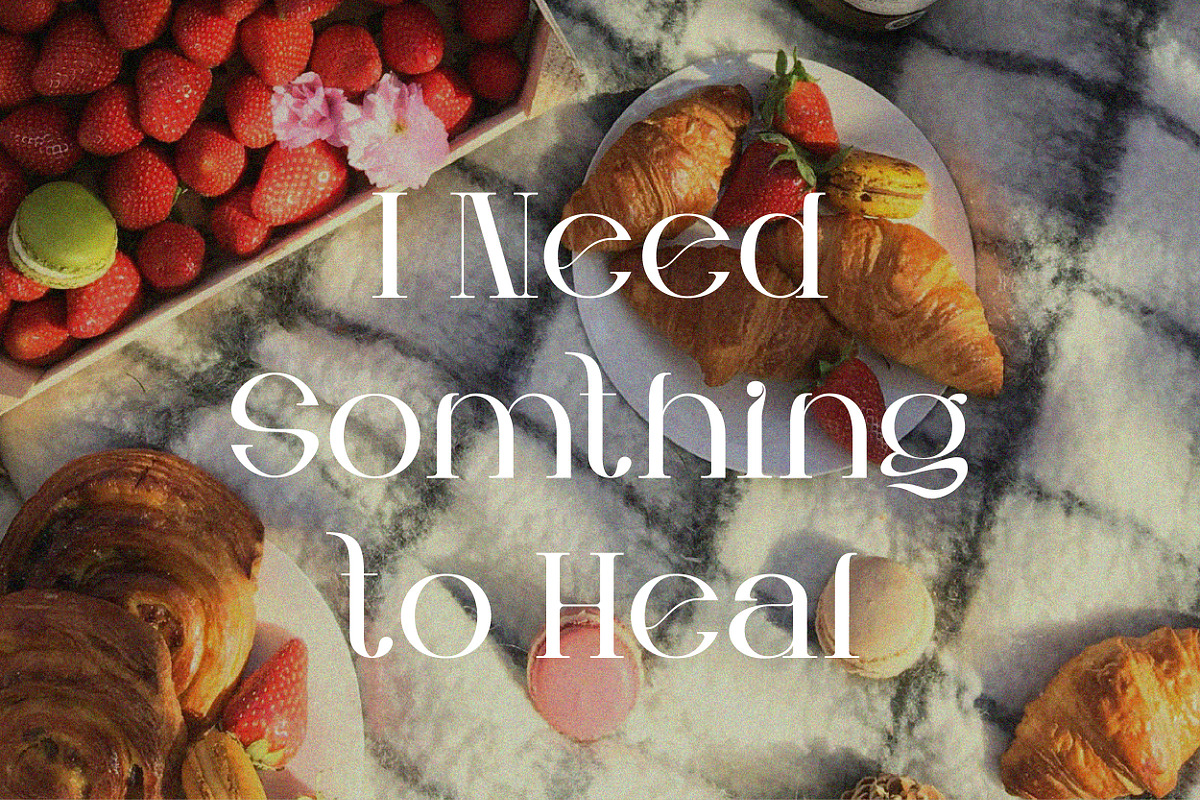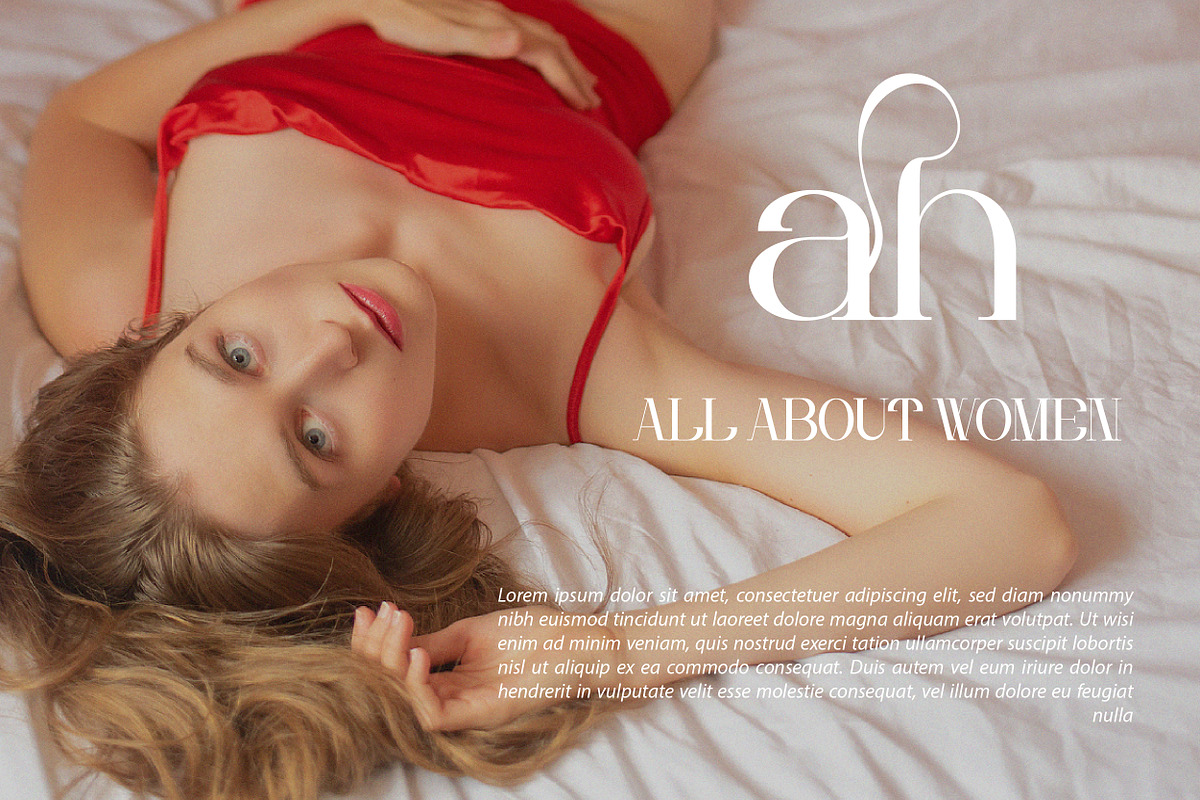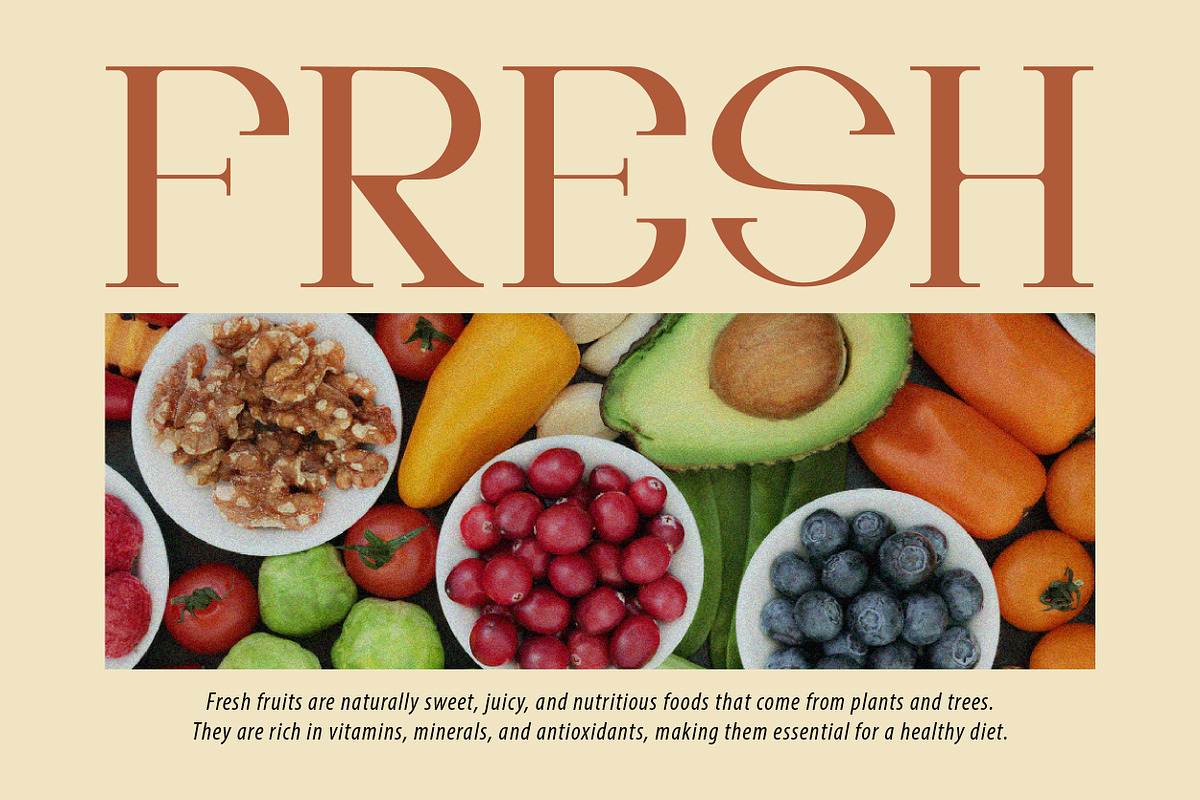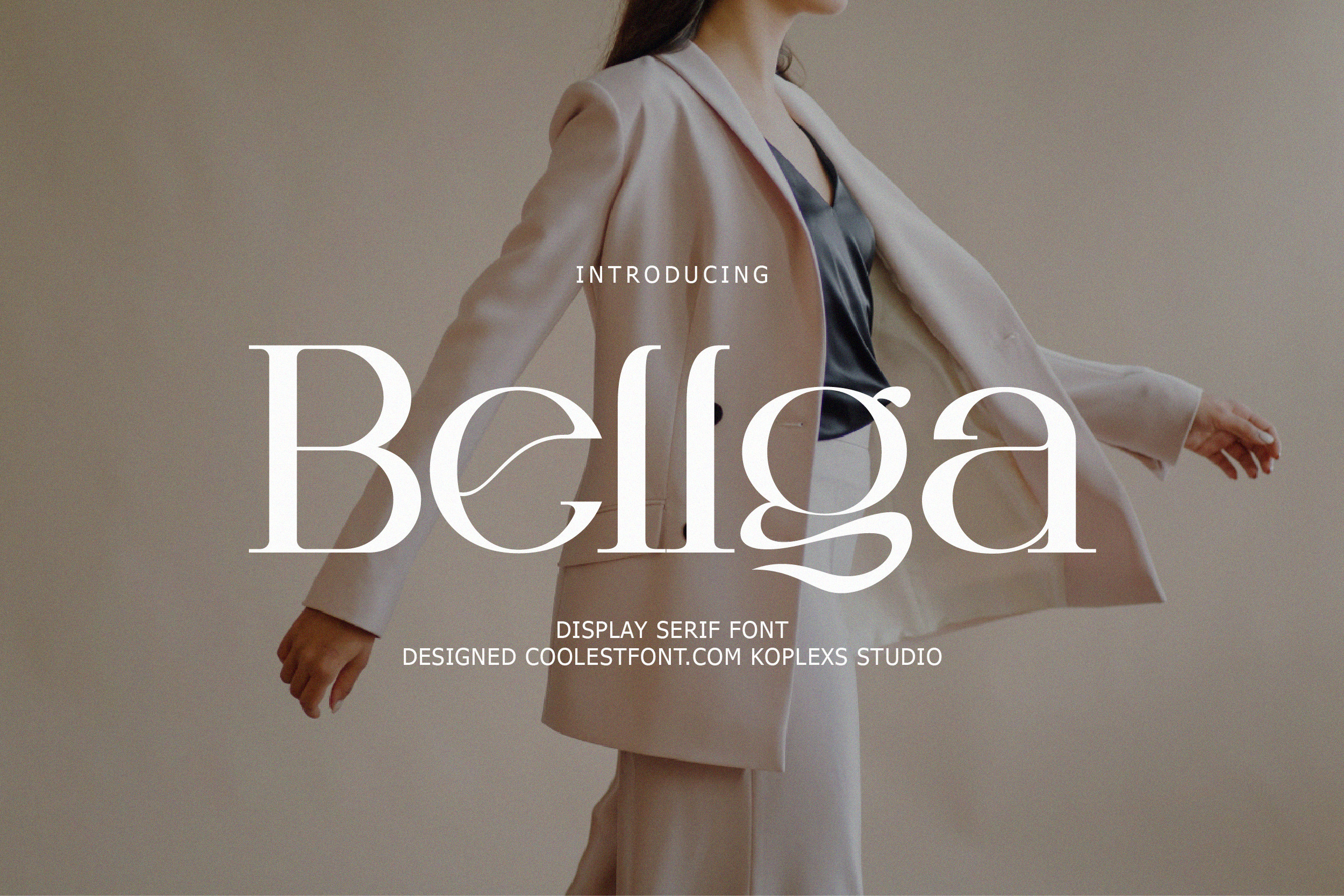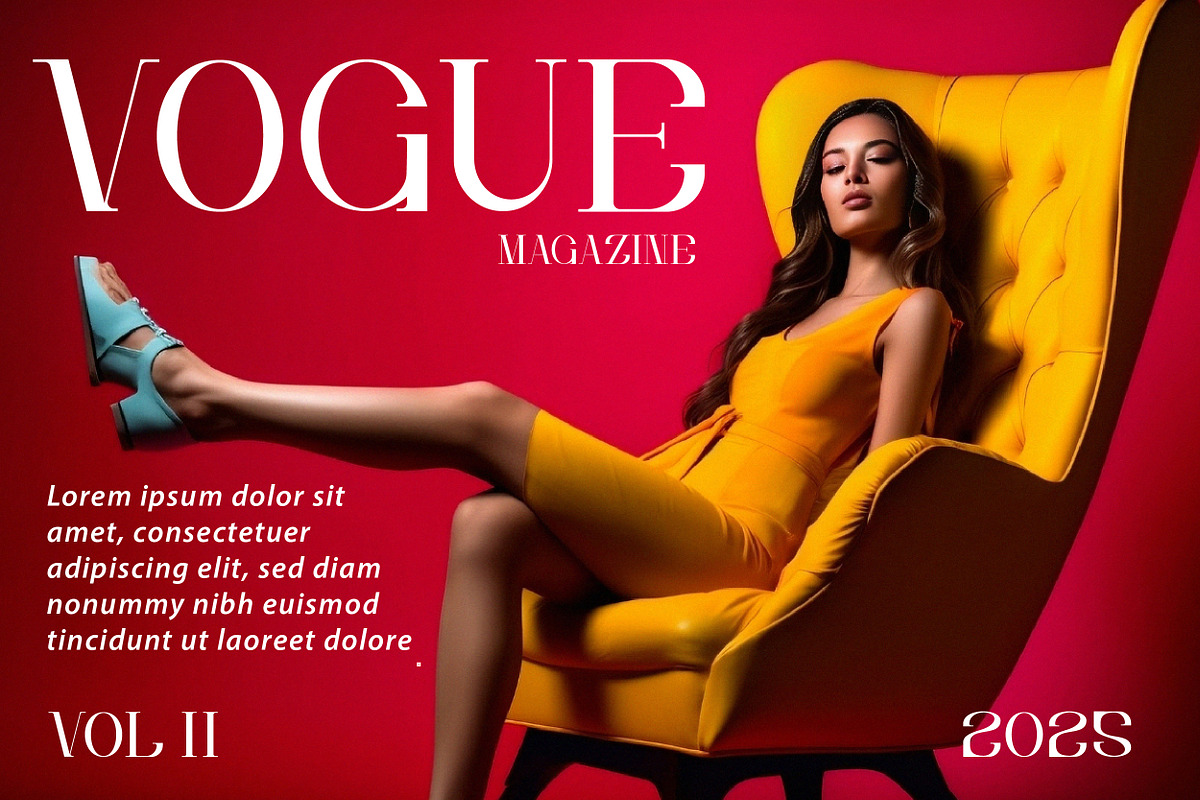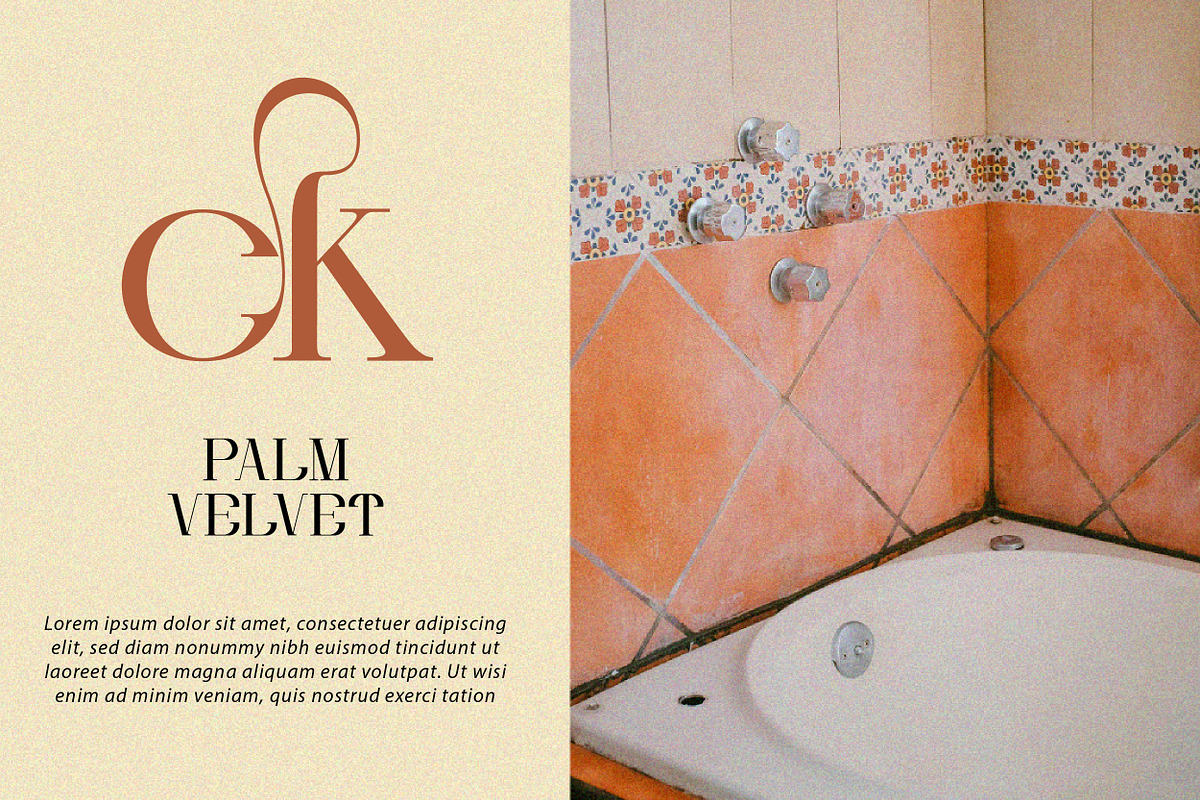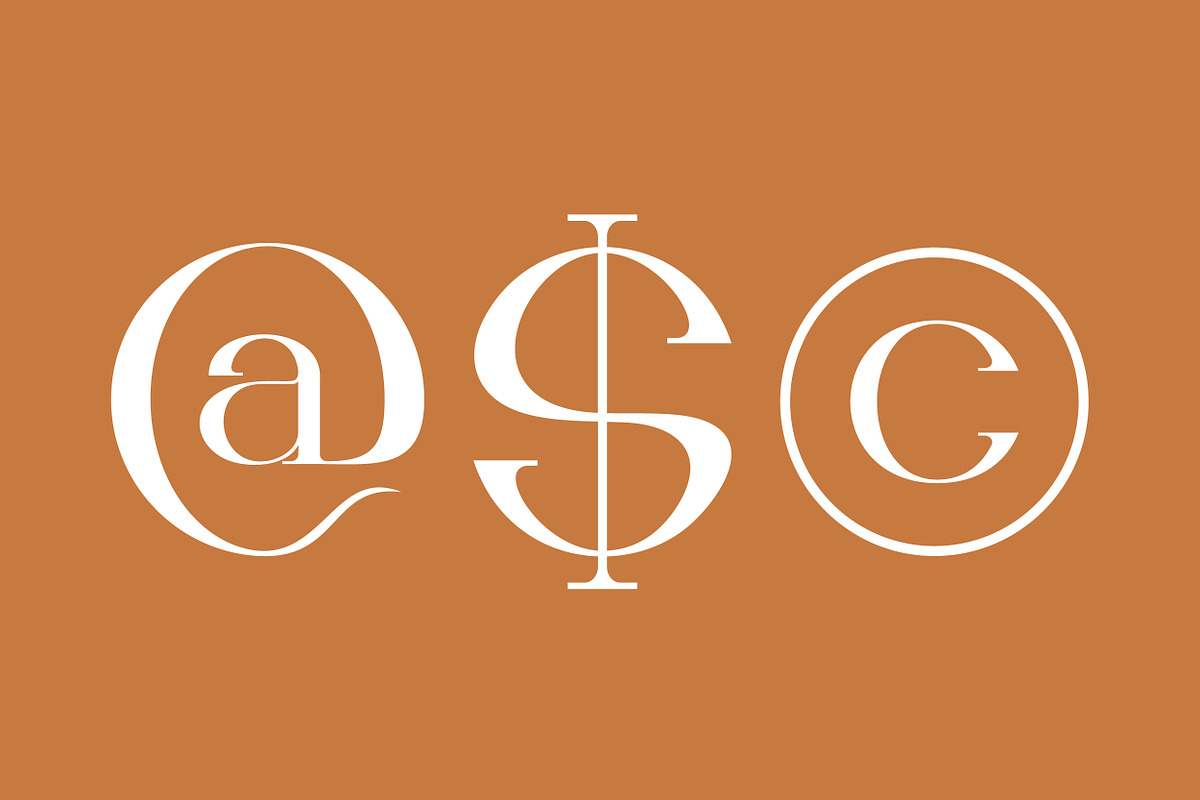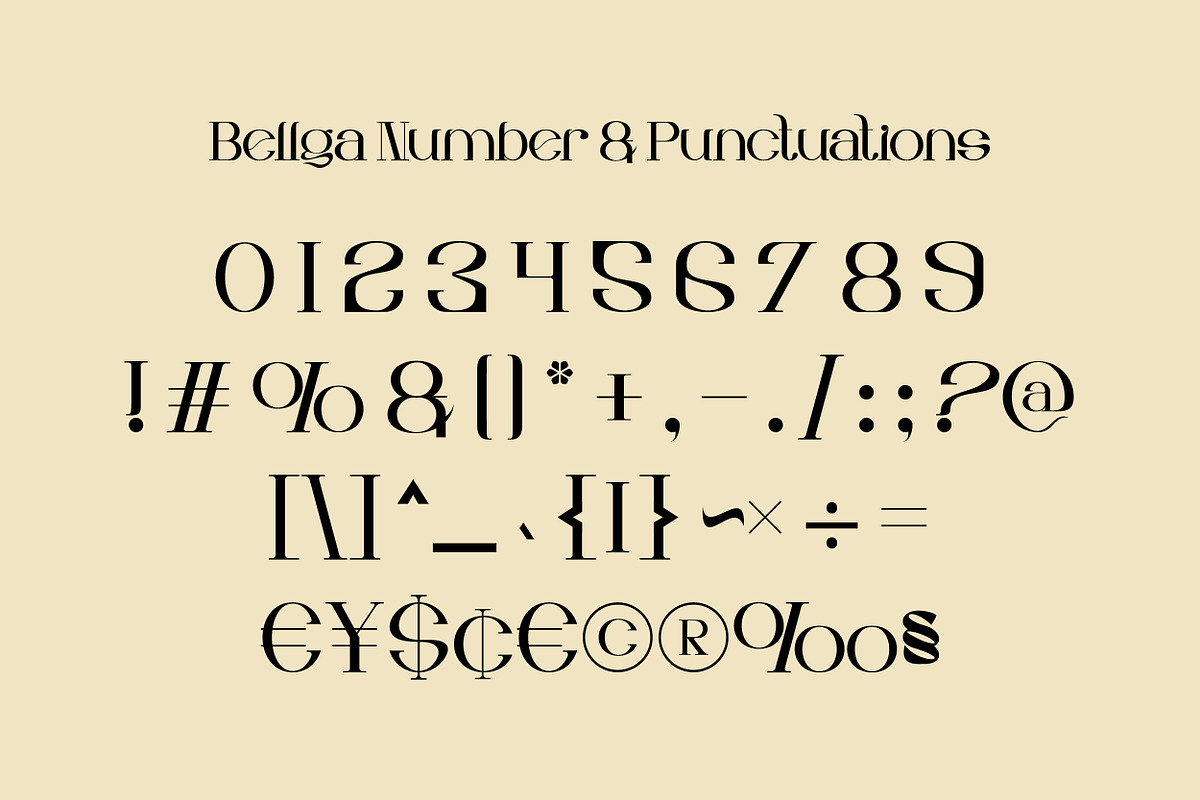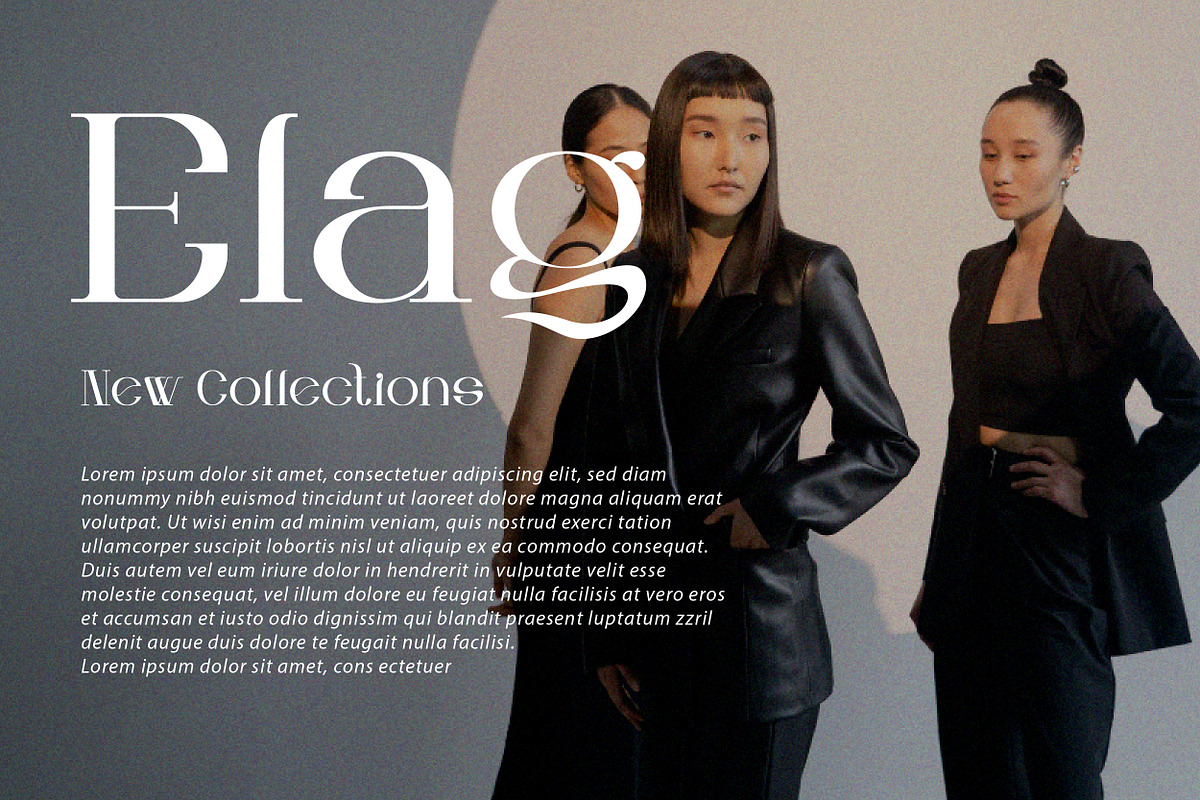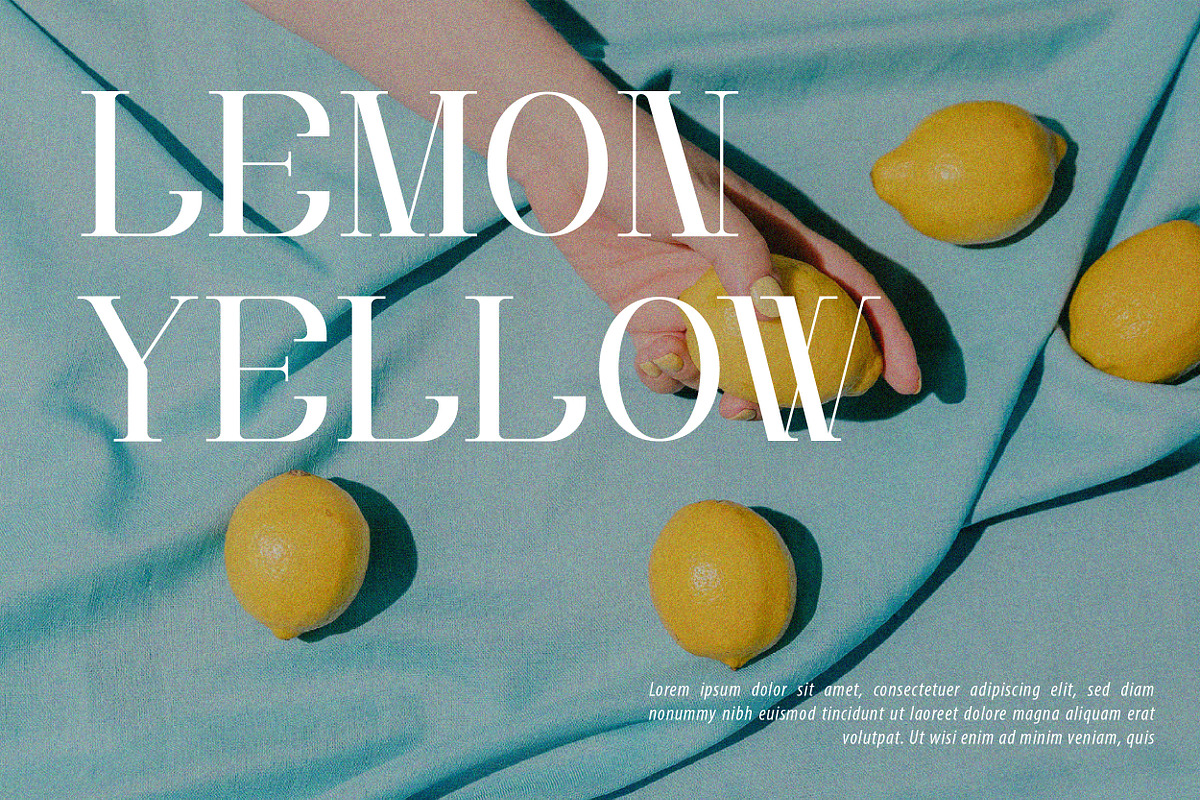
Bellga – Elegant Display Serif Font
Bellga – Elegant Display Serif Font for Logos & Branding
Bellga Font is a premium display serif font that fuses classic serif grace with a contemporary twist—perfectly tailored for modern serif, logo, branding, and promotional designs on Creative Market. Sculpted wedge serifs, high‑contrast strokes, and flowing swash terminals give Bellga an unmistakable luxury feel, whether it’s used at giant billboard scale or in finely tuned wordmarks.
Why You’ll Love Bellga Font
High‑Impact Headlines & Logos Dramatic thick‑and‑thin transitions and distinctive letterforms make your headlines—and brand marks—impossible to ignore.
Stylistic Swashes & Ligatures Unlock a refined look with alternate capitals (A, E, G, L) and discretionary ligatures (LL, TH) for bespoke typography.
Versatile Weight Range Light • Regular • Bold—build precise hierarchies across hero titles, subheads, and body copy.
Advanced OpenType Features Stylistic sets, small caps, old‑style figures, fractions, superscript/subscript, and more—ideal for editorial layouts.
Ideal for
- Logo & Identity Design — Forge luxury wordmarks that set your brand apart.
- Packaging & Labels — Stand out on the shelf with elegant typography.
- Editorial & Web Headlines — Command attention in magazines, blogs, and social posts.
- Promotional Materials — Craft eye‑catching banners, brochures, and ads.
- Kerning & Spacing: Custom‑tuned pairs for flawless optical balance